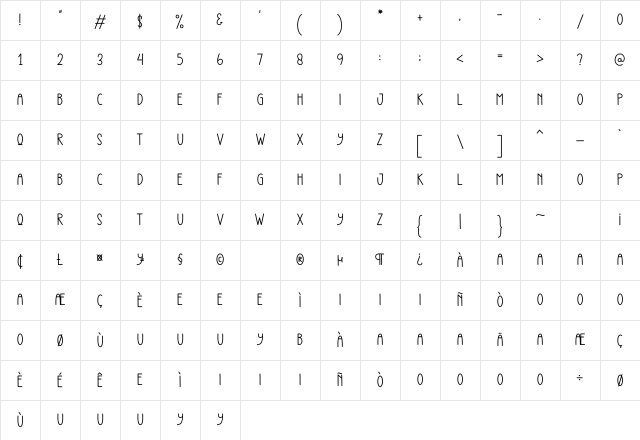
Hectogram Regular
Design Context for Hectogram
Hectogram is a composed and adaptable typeface that performs quietly and consistently across a wide range of design contexts.